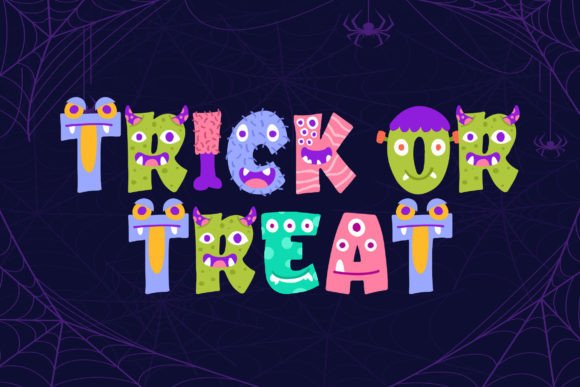
Monster Ground Font
Monster Ground is a colorful decorative font with a playful typography. This font is perfect for a design that makes it more attractive and playful. It is suitable for book covers, posters, packaging, merchandise, logotypes and much more.